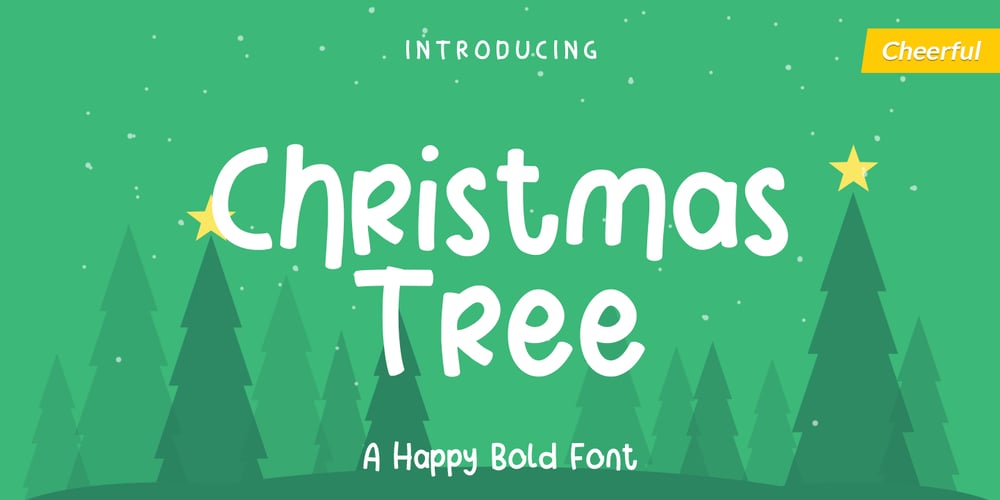
Christmas Tree Font Family was designed by Deri Kurnia and published by Trim Studio. Christmas Tree contains 1 styles and family package options. Christmas Tree is fun display font created to help spread holiday cheer. Get inspired by its charming appearance!Its perfectly suited for crafter and graphic artist to complete their design such as invitation, advertisement, poster, logo, birthday, product sign, and many more!Christmas Tree Font is also Lightweight and contains All Standard glyphs and punctuations and can be used beside any font.